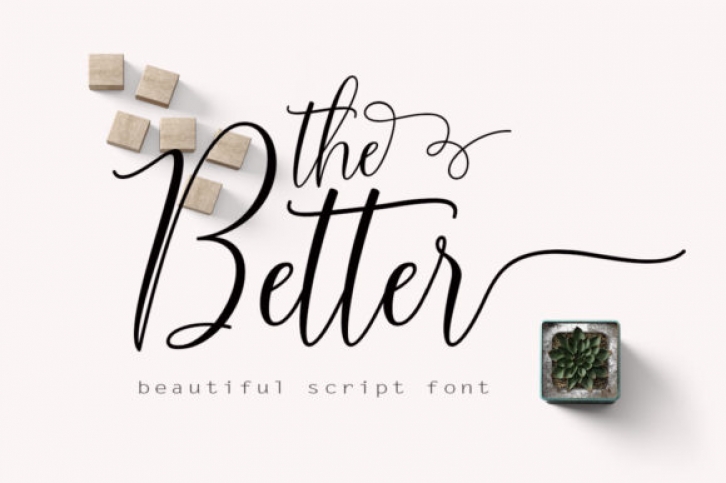
The Better is a beautiful calligraphy font. It has a very natural writing style which can be used to give your design an authentic look.
It can be used for various purposes such as headings, logos, wedding invitations, t-shirts, letterheads, labels, news, posters, badges, and much more!